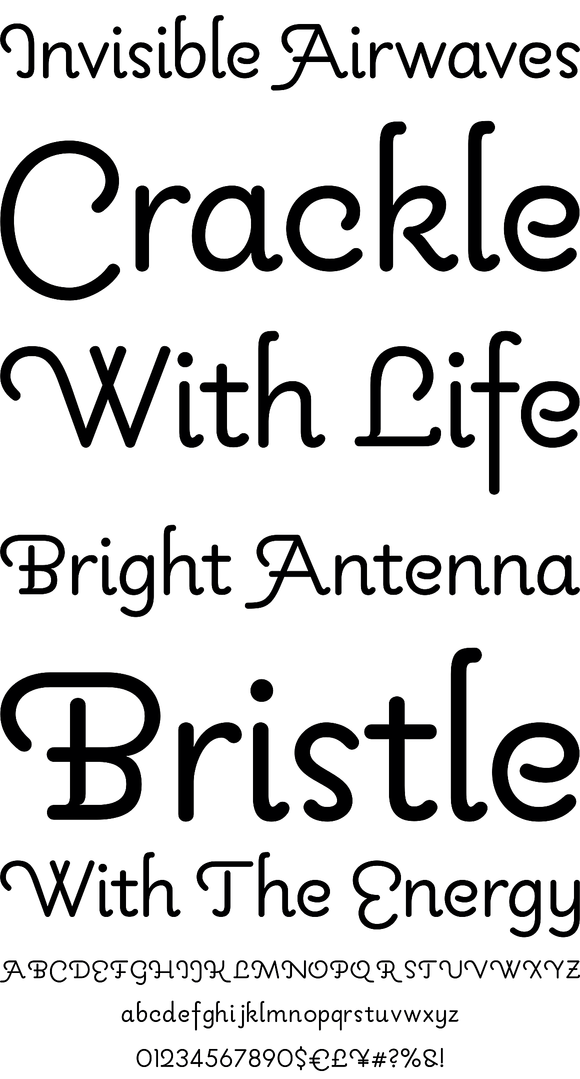
Pauline
Foundry: Insigne
Pauline is a sans serif with a strong influence from retro scripts. Pauline is a geometric face formed with slow and deliberate rounded brush strokes. The tall ascenders give it a useful touch of naïveté. It's a face suitable for some interesting titling and short bits of copy.